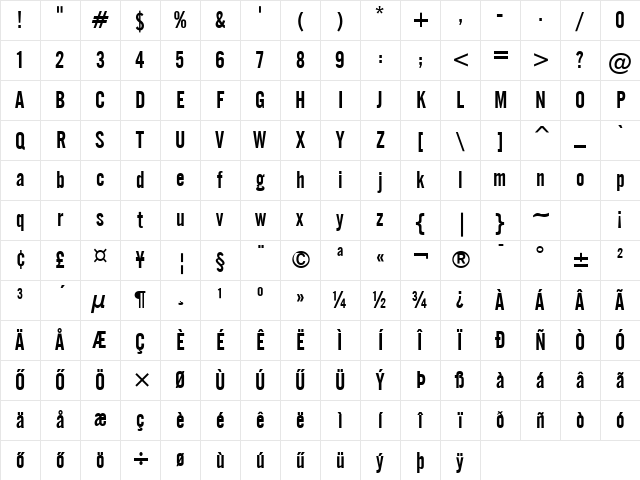
Alternate-GothicNo.2 HU takes a clean, functional approach - its unadorned letterforms prioritise legibility and work reliably across screen and print environments.
Font Pairing: Works well alongside a characterful serif or display font that can carry the expressive load while Alternate-GothicNo.2 HU handles the functional copy.
Pro Tip: Use Alternate-GothicNo.2 HU for UI labels, navigation, and short-form body copy where clean legibility is the priority.